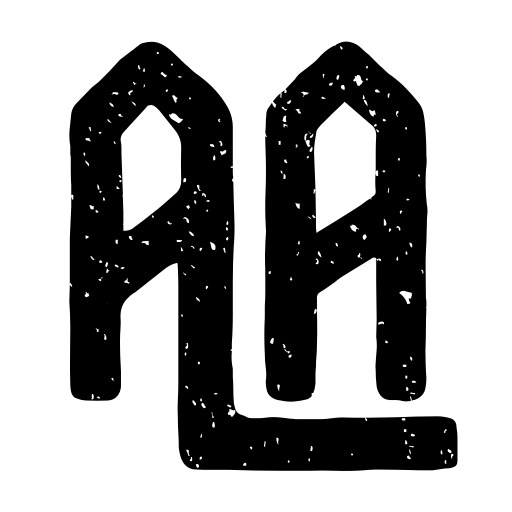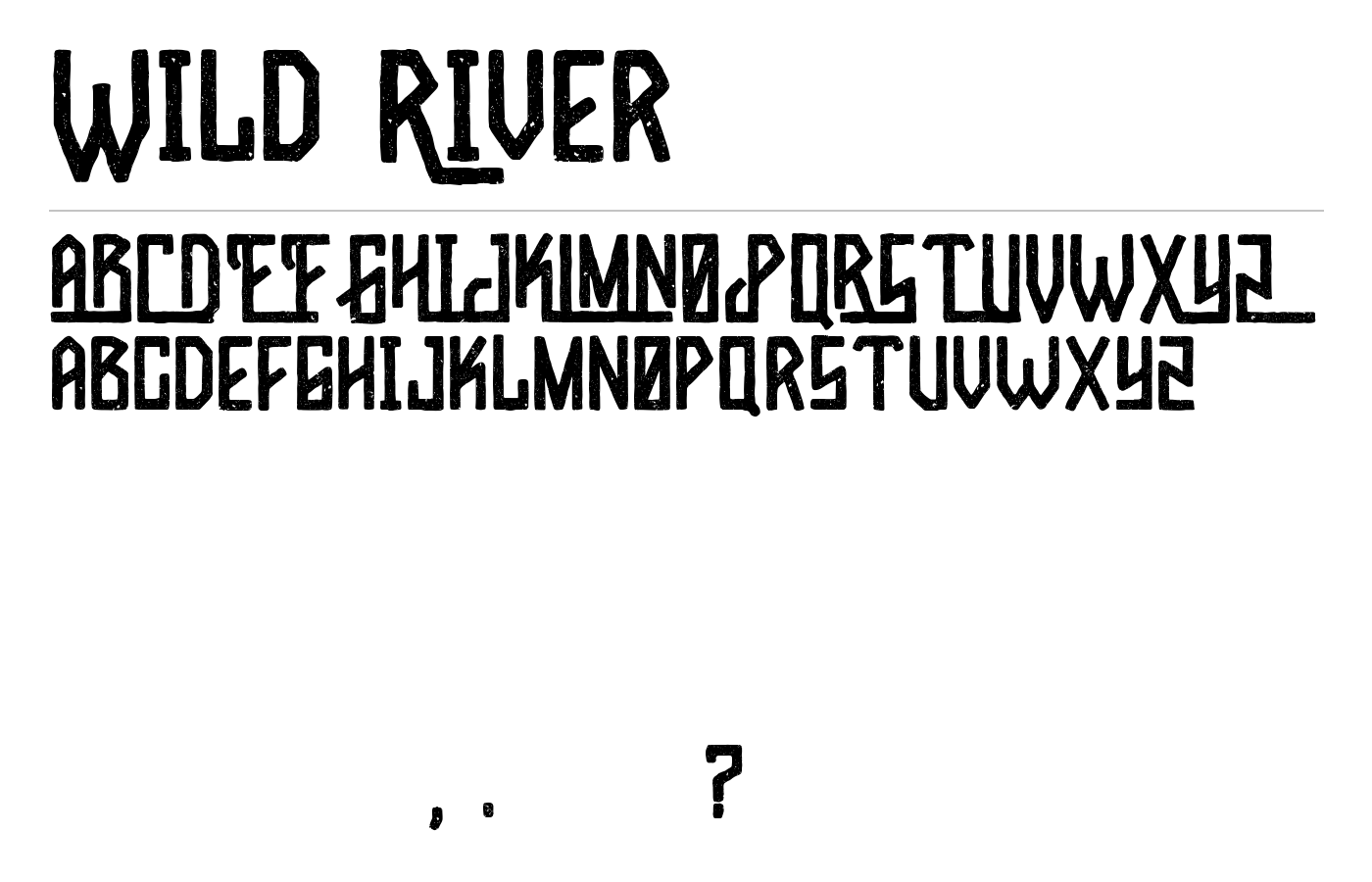
Wild River is a bold, condensed sans serif font with a rugged, hand-crafted feel that gives it a distinctively adventurous and organic character. Its uneven strokes and textured edges evoke a natural, outdoorsy vibe, making it ideal for branding and headlines where a bold, rustic personality is desired. This font works wonderfully for outdoor, craft, or lifestyle projects that want to communicate energy and authenticity in a striking, informal style.
Wild River Font
About Wild River Font
| Font family | Wild River Font |